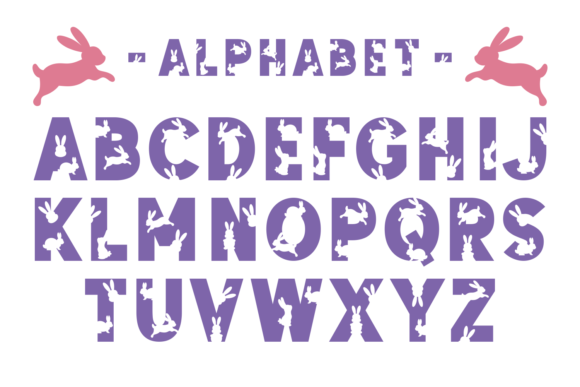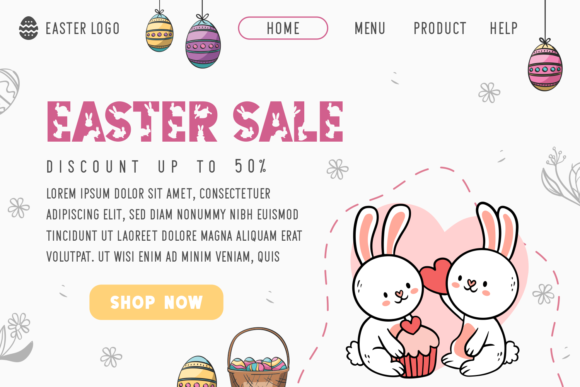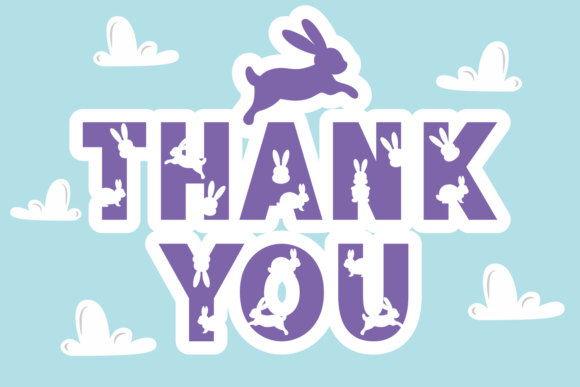
Bunny Cute Font: The Perfect Addition to Your Design Collection
Are you a designer or crafter looking for a font that can add a touch of whimsy and charm to your creations? Look no further than the Bunny Cute Font! This adorable decorative font is sure to capture the hearts of anyone who lays eyes on it, and its versatility makes it perfect for a wide range of projects.
What Makes Bunny Cute Font So Special?
Bunny Cute Font is a charming decorative font that boasts an authentic feel that’s hard to find in modern typography. Its unique and playful design makes it perfect for creating gorgeous invitations, beautiful stationary art, eye-catching social media posts, and cute greeting cards. Whether you’re a professional designer or a DIY crafter, this font is sure to become a favorite in your collection.
Authentic Feel and Versatility
One of the standout features of Bunny Cute Font is its authentic feel. Unlike many modern fonts that can come across as sterile or impersonal, Bunny Cute Font has a warm and inviting quality that’s reminiscent of hand-drawn typography. This makes it perfect for projects where you want to add a personal touch, such as:
- Birthday cards and party decorations
Use Bunny Cute Font to Create Stunning Designs
With Bunny Cute Font, the design possibilities are endless! Here are a few ideas to get you started:
- Create gorgeous invitations for special occasions, such as baby showers, bridal showers, or birthday parties
- Design beautiful stationary art, including journals, planners, and greeting cards
- Make eye-catching social media posts that are sure to grab attention
- Develop cute and playful branding and packaging design for your business or product
Why Designers and Crafters Love Bunny Cute Font
So why do designers and crafters love Bunny Cute Font so much? Here are just a few reasons:
- Easy to read and use: Despite its playful design, Bunny Cute Font is easy to read and use, making it perfect for both digital and print projects
- Highly versatile: Bunny Cute Font can be used for a wide range of projects, from formal invitations to casual social media posts
- Unique and authentic feel: Bunny Cute Font has a unique and authentic feel that’s hard to find in modern typography
- Perfect for DIY projects: Bunny Cute Font is perfect for DIY crafters who want to add a personal touch to their projects
Get Creative with Bunny Cute Font
If you’re looking for a font that can add a touch of whimsy and charm to your designs, look no further than Bunny Cute Font. With its authentic feel, versatility, and ease of use, this font is sure to become a favorite in your collection. So why wait? Download Bunny Cute Font today and start creating stunning designs that are sure to delight!
Tips and Tricks for Using Bunny Cute Font
Here are a few tips and tricks to help you get the most out of Bunny Cute Font:
- Experiment with different colors and textures: Bunny Cute Font looks great in a variety of colors and textures, so don’t be afraid to experiment and find the perfect combination for your project
- Use it with other fonts: Bunny Cute Font pairs well with other fonts, so try using it with a bold font for headings or a script font for added elegance
- Add embellishments and graphics: Bunny Cute Font looks great with embellishments and graphics, such as flowers, hearts, or other whimsical designs
In conclusion, Bunny Cute Font is a charming decorative font that’s perfect for designers and crafters who want to add a touch of whimsy and charm to their creations. With its authentic feel, versatility, and ease of use, this font is sure to become a favorite in your collection. So why wait? Download Bunny Cute Font today and start creating stunning designs that are sure to delight!